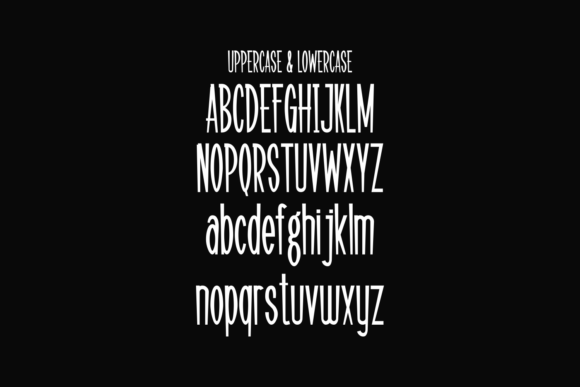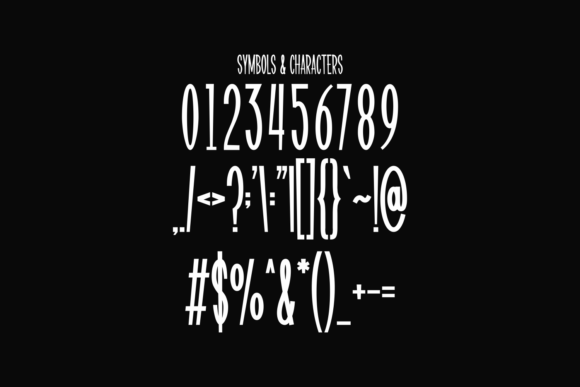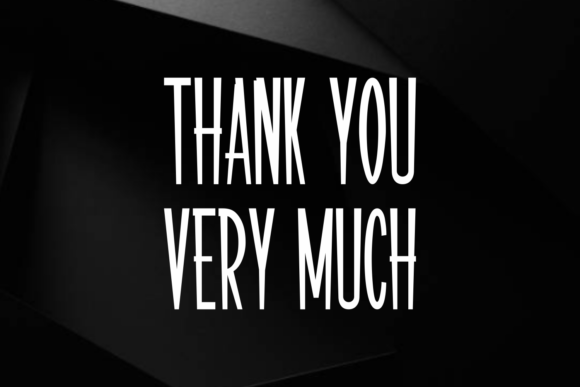
Introduction to Makhiten Font
Have you ever been working on a creative project, and you can’t quite put your finger on the right design element to elevate it to the next level? For many designers, this is a familiar frustration. But what if you stumbled upon a font that effortlessly adds a touch of whimsy and personality to your work? Enter the Makhiten Font, a unique and captivating display font that’s poised to become your new design BFF.
Whether you’re a seasoned pro or just starting out, the Makhiten Font is an invaluable resource for any designer looking to add some visual interest to their projects. With its quirky charm and high-quality design, this font is perfect for anyone looking to create eye-catching graphics, logos, or even just add some flair to a blog post or social media update.
Key Features of Makhiten Font
- High-quality font design resource with a unique, creative style, perfect for artistic and design projects.
- Ideal for use in creative projects, such as graphic design, digital art, and typography-based designs.
Honest Review: Makhiten Font
As a designer, I’m always on the lookout for high-quality design resources to elevate my creative projects. Recently, I had the chance to try out the Makhiten Font, and I’m excited to share my honest review with you.
What works well: ✨ I was immediately impressed by the clean and modern design of the Makhiten Font. The transparent background and crisp lines make it perfect for any creative project that requires a touch of sophistication. The font is also highly versatile and can be used for a wide range of applications, from headings to body text.
What doesn’t work so well: ⚠️ While the Makhiten Font is generally well-designed, I did find that the font family is a bit limited in terms of styles and weights. This might be a concern for designers who need a more extensive font family for their project.
Overall impression: I was pleasantly surprised by the Makhiten Font, and I would definitely recommend it to designers who are looking for a high-quality, free download for their creative project. With its modern design and transparent background, it’s a great addition to any design resource collection.
- High-quality, modern design
- Crisp lines and clean typography
- Limited font family (only a few styles and weights)
Makhiten Font is ideal for a variety of creative projects, including graphic design, digital art, and print design. Its unique style and high-quality design make it perfect for creating eye-catching graphics, presentations, and documents.